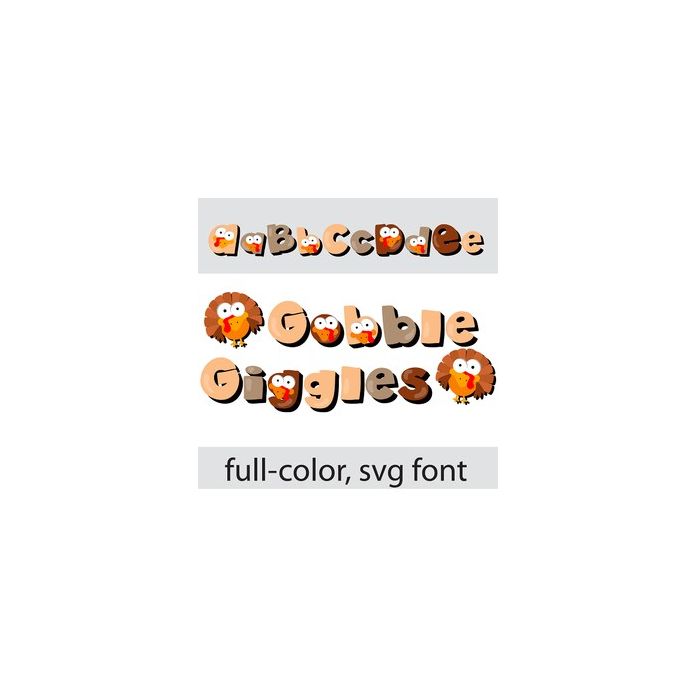
This full-color font features fun, comic-style lettering with heavy black shadows and turkey faces here and there. Access full turkeys by typing the greater than and less than glyphs. There is an alt case w/ additional colors you can access through your system or Silhouette's glyph map.